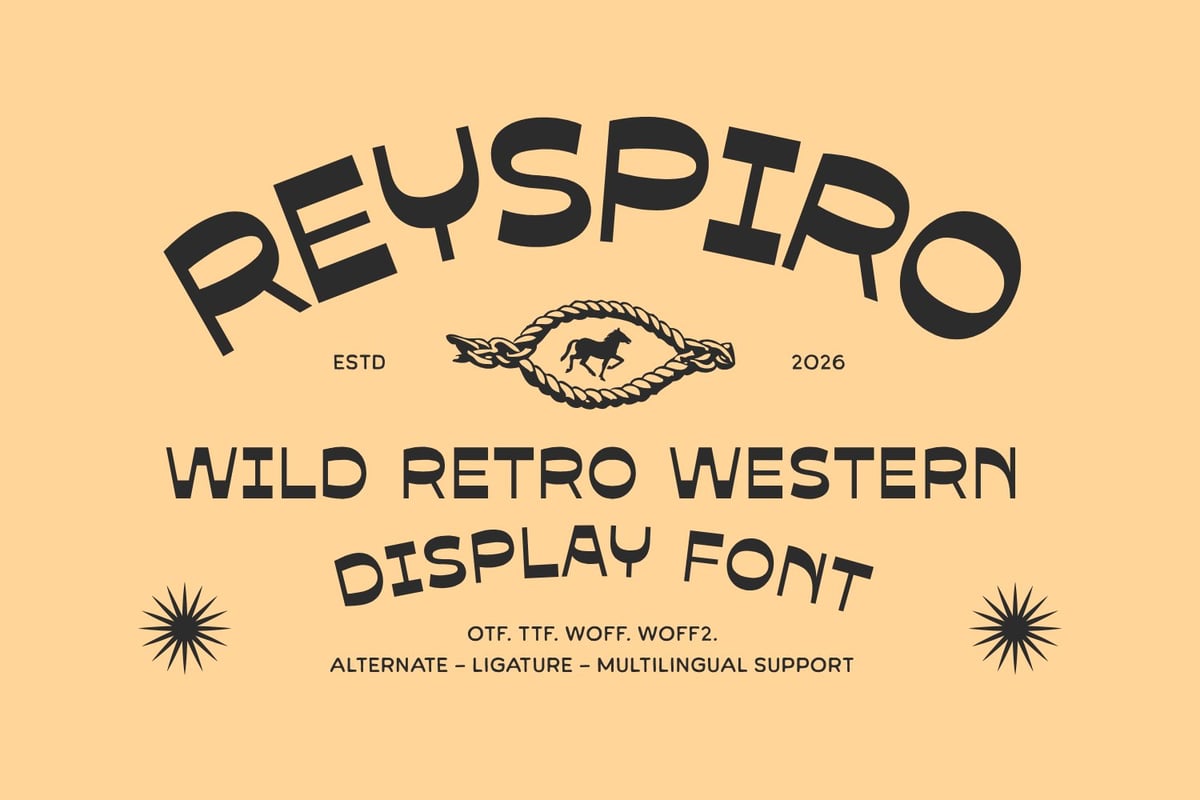
Western Font Reyspiro
Saddle up with Reyspiro - the bold western display font that captures the untamed spirit of the frontier. This wild retro western typeface draws inspiration from vintage cowboy typography and classic western culture, delivering authentic frontier character to your creative projects. Reyspiro's bold design makes it ideal for commanding logos, eye-catching posters, impactful headlines, product packaging, memorable branding, engaging social media graphics, and nostalgic retro design projects. The f...